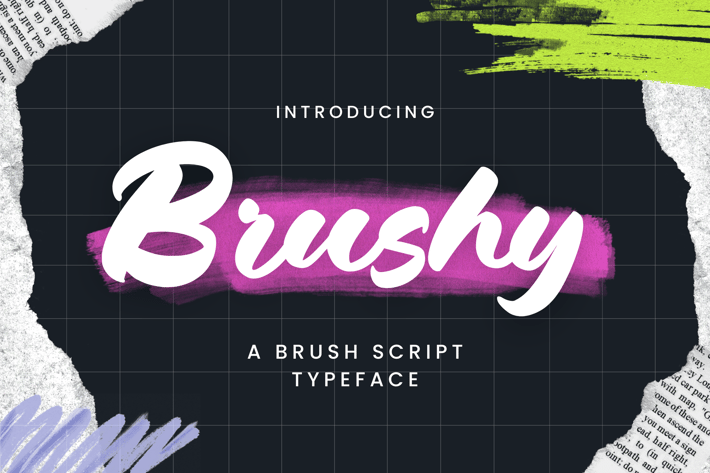
Brushey - A Brush Script Typeface
Discover the artistic charm of Brushey, a captivating brush script typeface that breathes life into your designs. With its fluid strokes and dynamic energy, Brushey adds a touch of sophistication to any project.
This versatile typeface seamlessly blends modern aesthetics with a hint of vintage flair, making it perfect for a wide range of applications.
Whether you're crafting invitations, designing logos, or working on branding projects, Brushey elevates your creations with its unique personality. Each letter is a work of art, carefully crafted to convey a sense of spontaneity and creativity.
The natural flow of the brush strokes creates a handmade feel, making Brushey the ideal choice for projects that demand both authenticity and style.